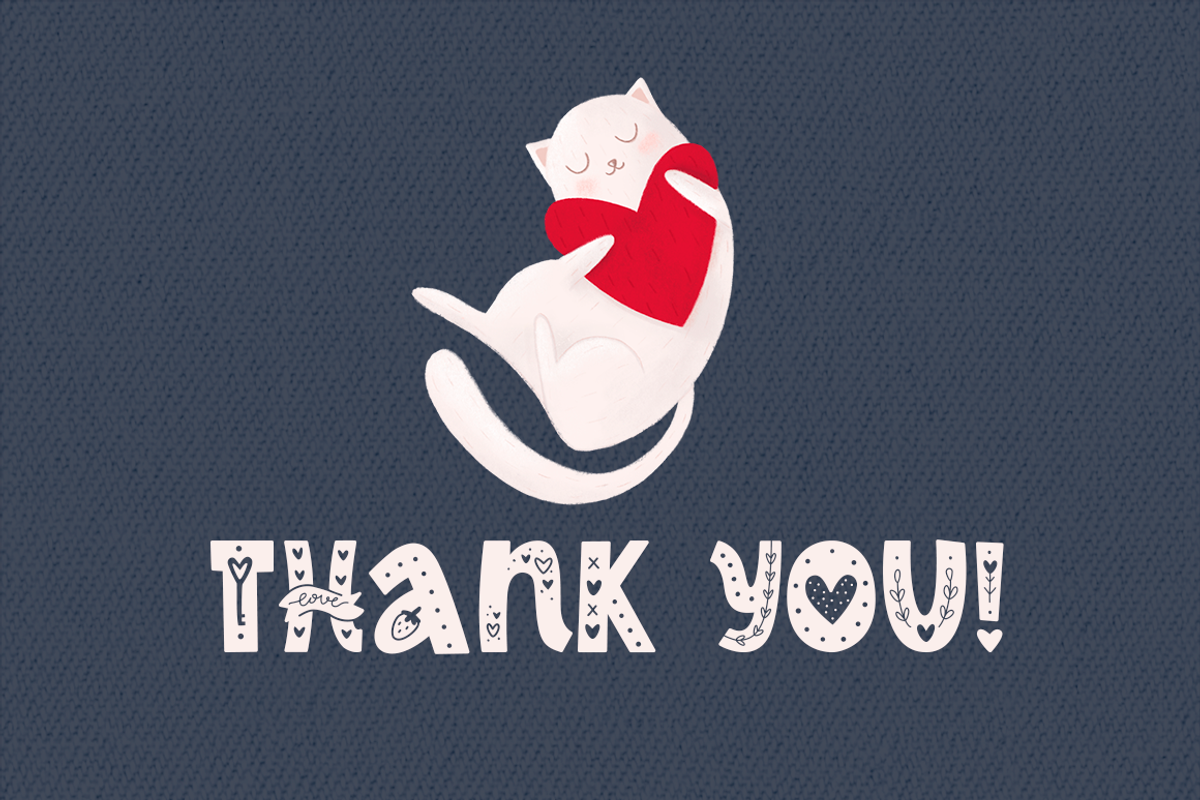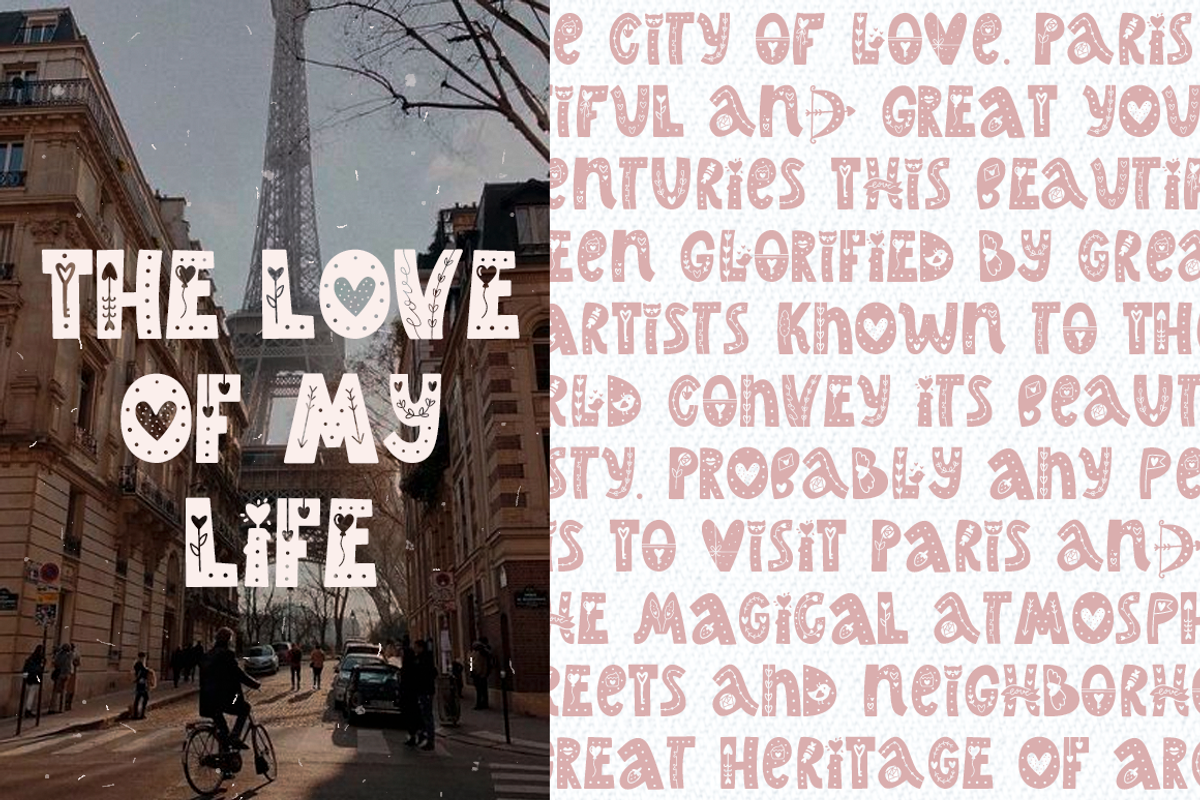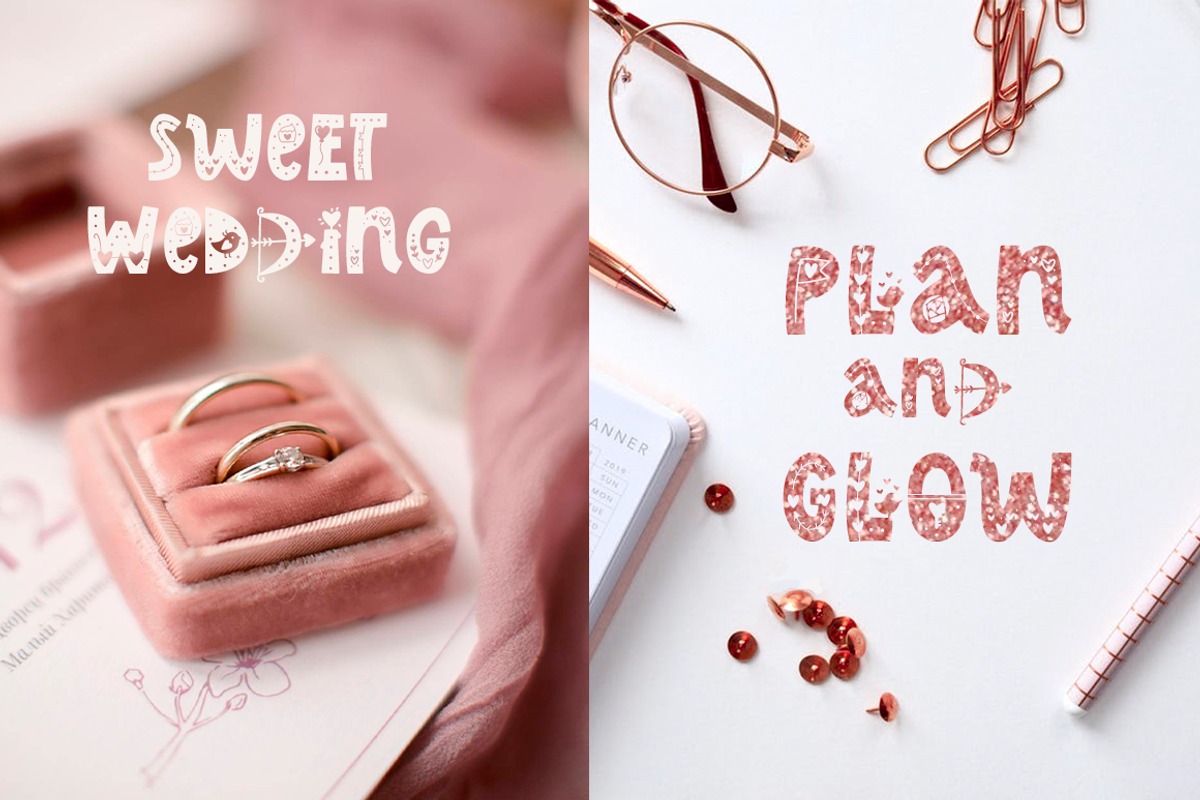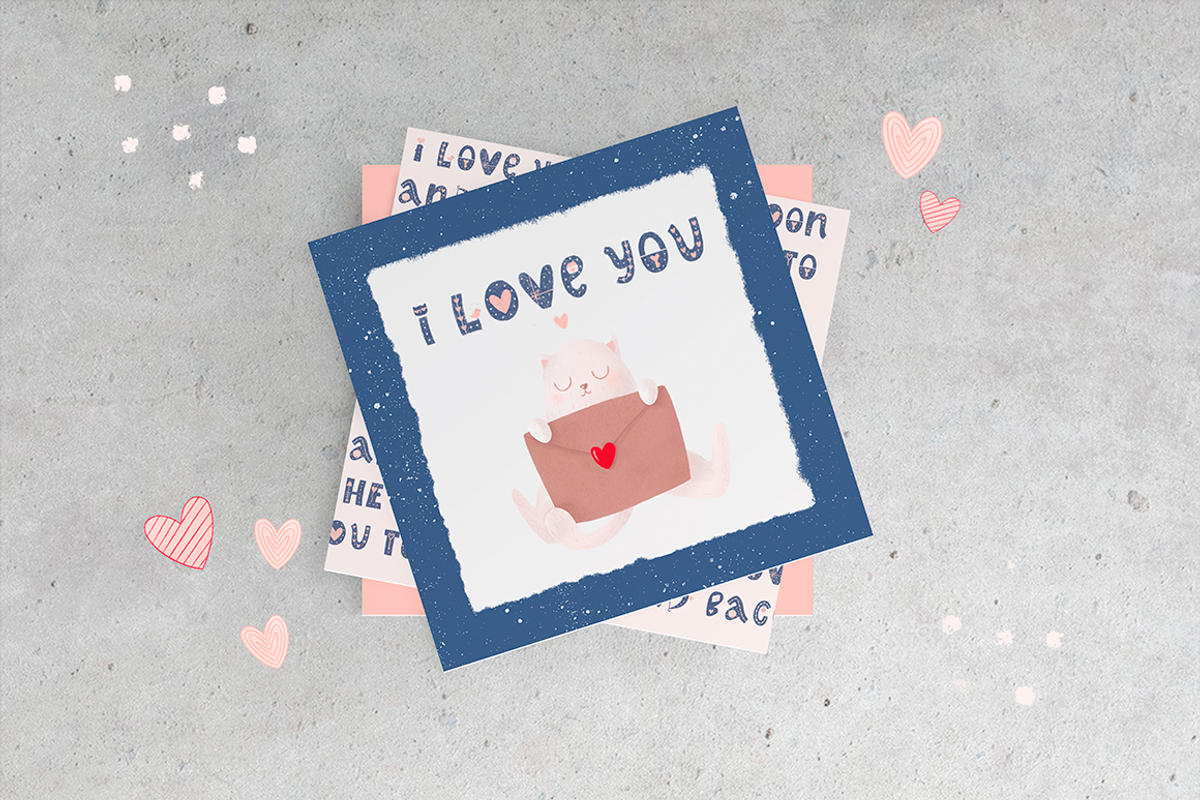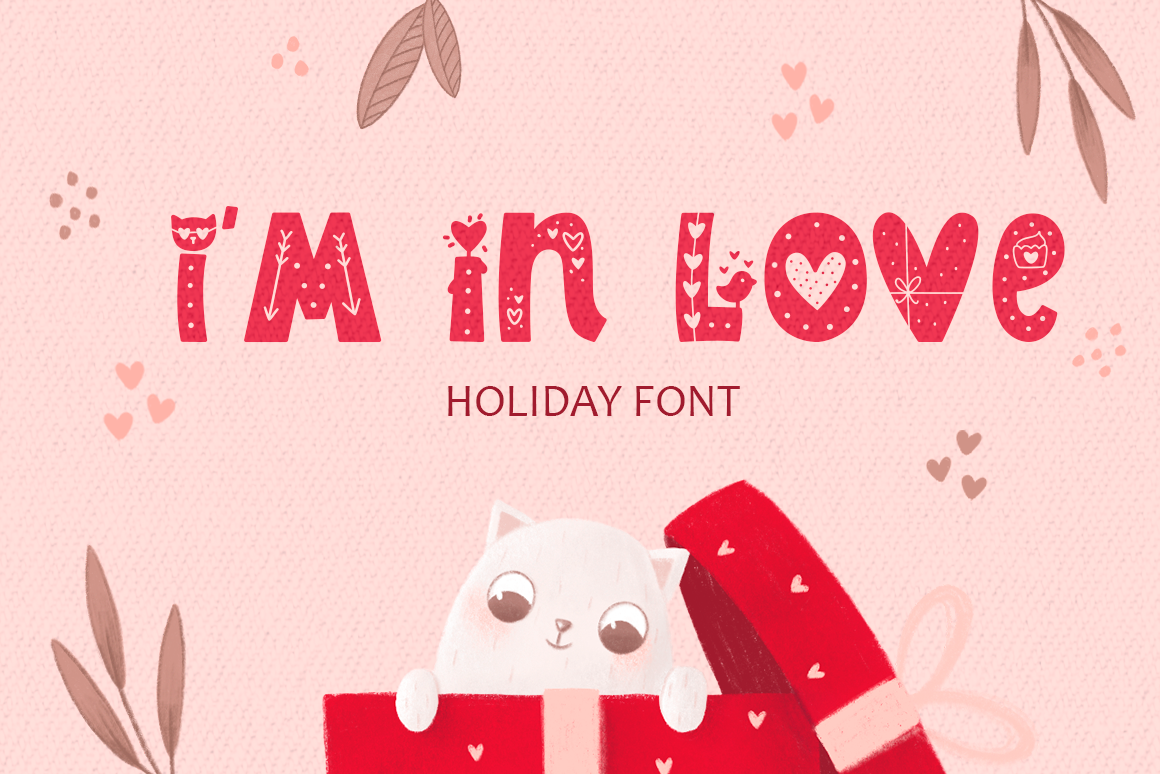
I’m In Love Font • Valentine's Font
I Am In Love Font is stylish display font about love inspired by scandinavian vibes and holiday feel. This font is perfect for decorating the holiday, for children's products, wedding invitations, posters, greeting cards and much more!
- Latin set A-Z in 2 alternatives, you can mixed it to create unique design
- Cyrillic set А-Я also in 2 variations
- Color latin set A-Z in 2 alternatives
- Color Cyrillic set А-Я also in 2 variations
- Color numerals & punctuation